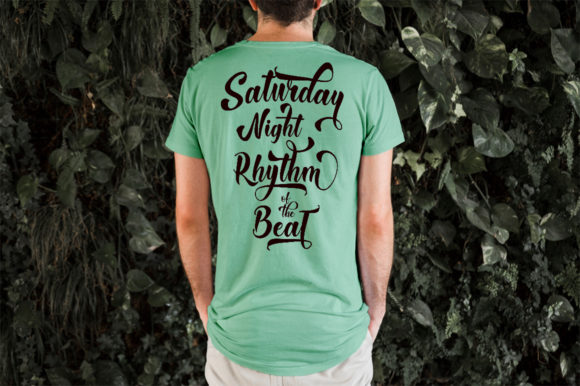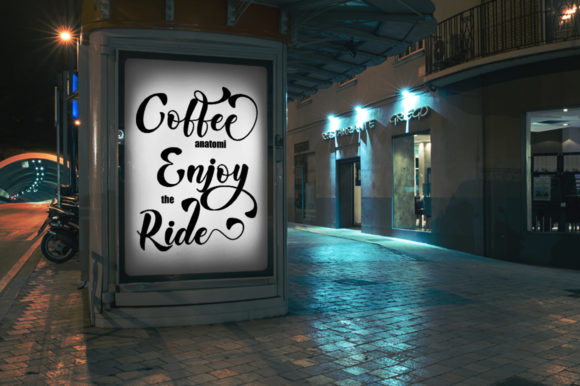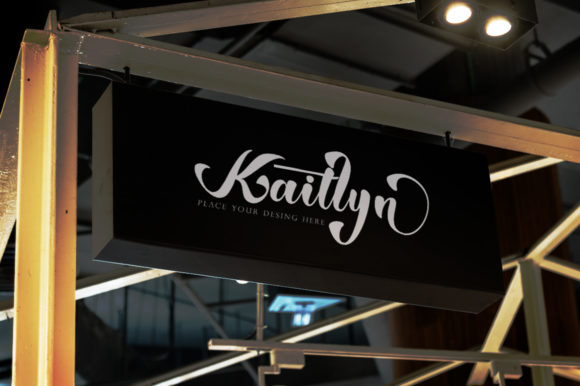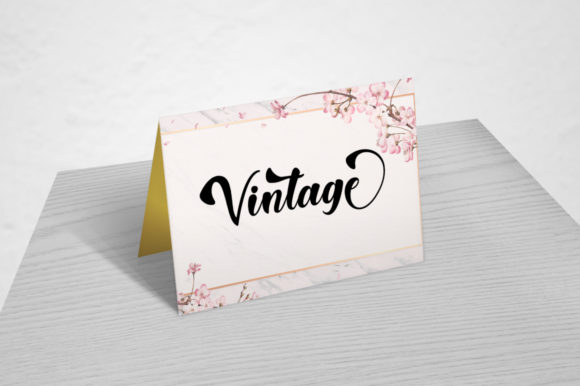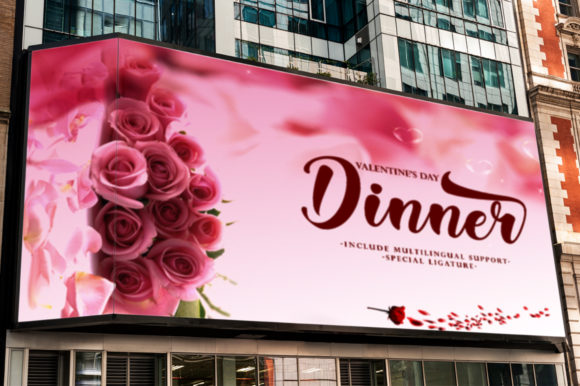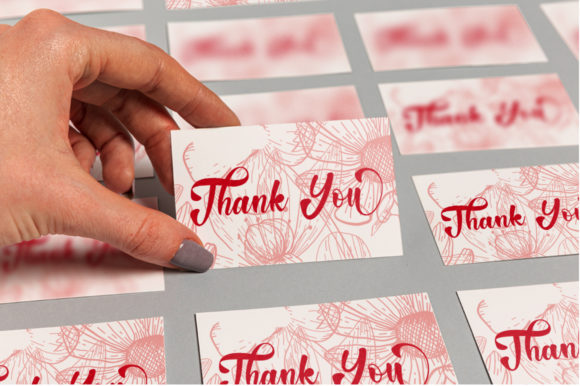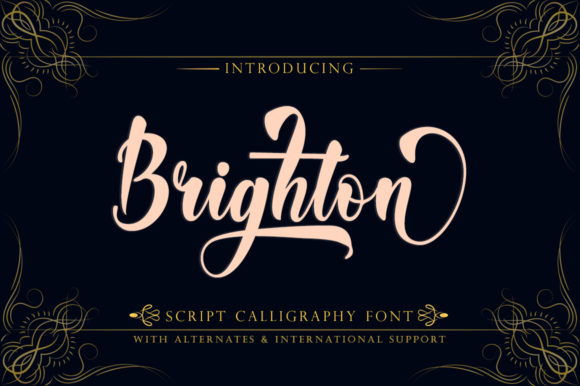
Discover the Elegance of Brighton Font: Elevate Your Design Projects
In the world of typography, the right font can make all the difference in a design project. If you’re on the hunt for a typeface that exudes classic elegance with a dash of uniqueness, look no further than the Brighton Font. This beautifully crafted font is inspired by the timeless appeal of classic typography, yet it brings its own distinctive style to the table, making it perfect for a wide array of design applications.
A Versatile Choice for Designers and Crafters
Brighton Font is incredibly versatile, making it an ideal choice for various design projects. Whether you’re working on:
- Logos: Create a lasting impression with a logo that boasts elegance and sophistication.
- Magazines and Books: Add a touch of class to your publications with a font that reads beautifully.
- Menus: Elevate your restaurant’s branding with a menu that showcases refined typography.
- Greeting Cards and Packaging: Make your cards and packaging stand out with a font that offers both style and readability.
- T-shirts, Bags, and Labels: Perfect for crafters, Brighton Font offers a unique way to customize merchandise.
PUA Encoding for Easy Access to Glyphs and Swashes
One of the standout features of Brighton Font is its PUA (Private Use Area) encoding. This means that accessing the font’s extensive library of glyphs and swashes is incredibly straightforward. Designers can easily incorporate these special characters into their work, allowing for a high degree of customization and creativity. Whether you’re looking to add a bit of flair to a headline or create a unique design element, Brighton Font’s glyphs and swashes are at your fingertips.
Special Features for Advanced Typography
Brighton Font doesn’t just stop at being a beautifully designed typeface; it also comes packed with special features that can take your designs to the next level. These include:
- Alternate Glyphs: Provide variations of letters and symbols, allowing for diverse typographic expressions within the same font.
- Ligatures: Combine multiple characters into a single glyph, creating a more harmonious and fluid text flow.
These features are particularly useful for designers looking to create complex, visually appealing text that stands out. With Brighton Font, you can achieve professional-level typography without needing to juggle multiple fonts or manually edit characters.
Why Choose Brighton Font?
With so many fonts available to designers today, what sets Brighton Font apart?
- Unique Style: Offers a fresh take on classic typography, giving your designs a distinctive edge.
- Versatility: Suitable for a wide range of projects, from digital designs to print materials.
- Easy to Use: PUA encoding and special features make it simple to access and incorporate the font’s advanced typographic elements.
Brighton Font is more than just a typeface; it’s a design tool that can elevate your projects with its classic elegance and unique flair. Whether you’re a professional designer or a crafter looking to add a personal touch to your merchandise, Brighton Font offers the versatility, ease of use, and advanced typographic features you need. Discover the difference that Brighton Font can make in your design work and bring a new level of sophistication and style to your creations.